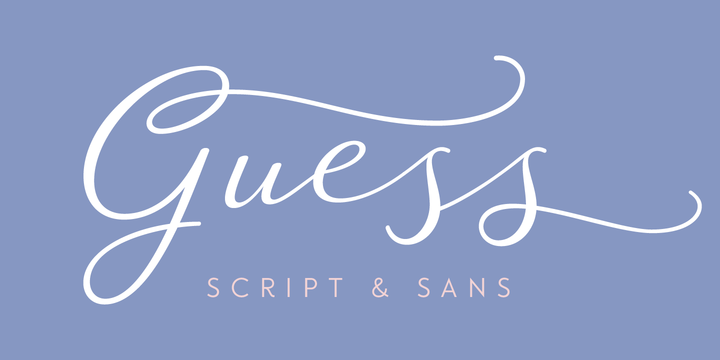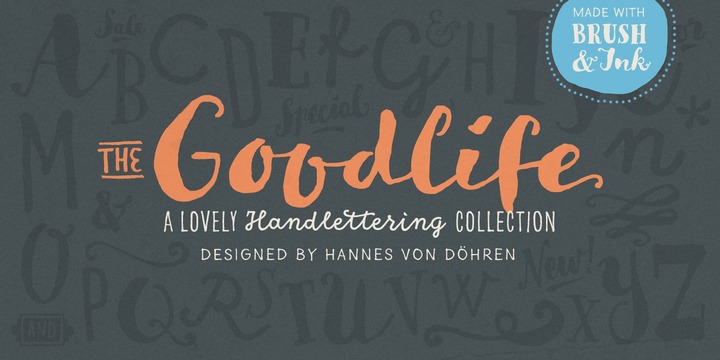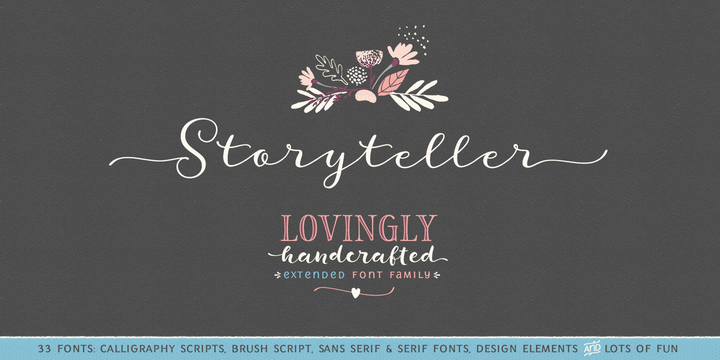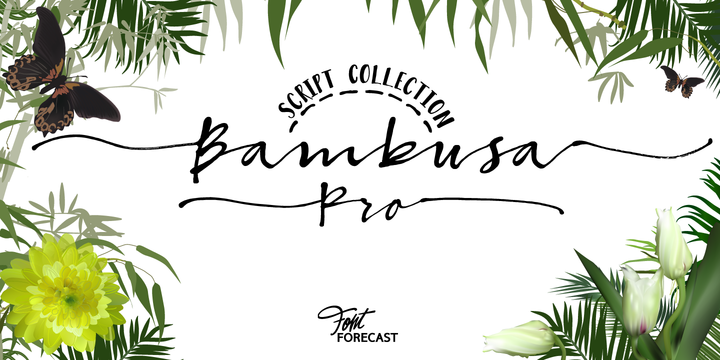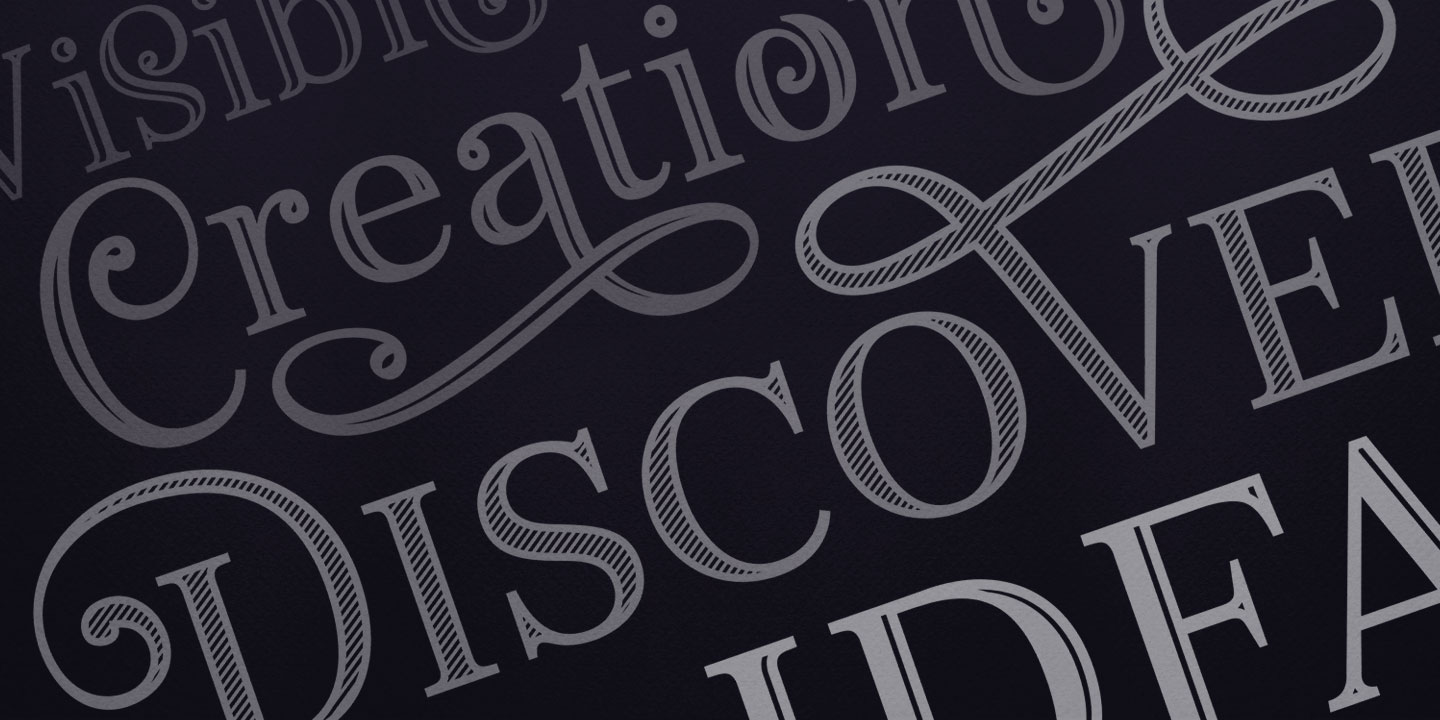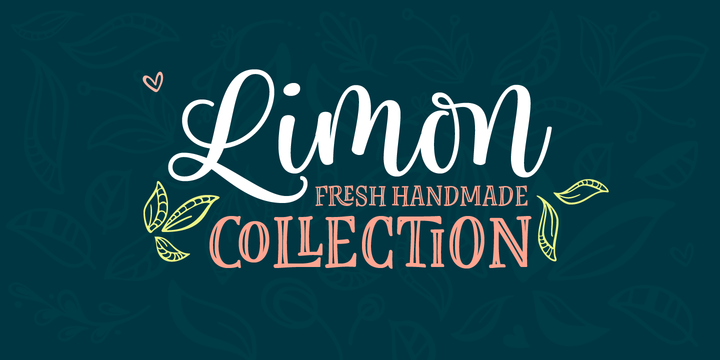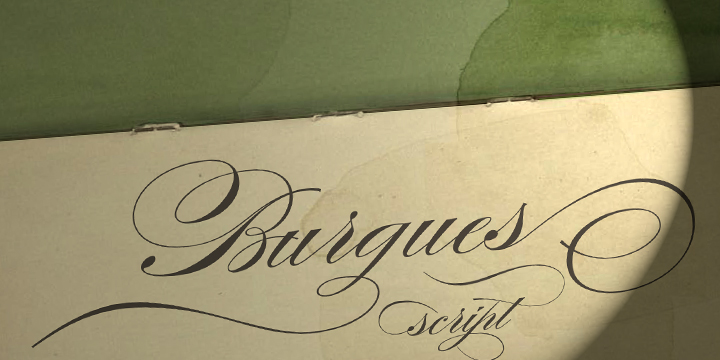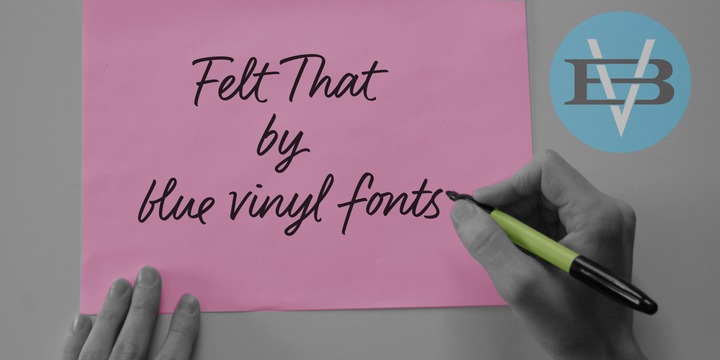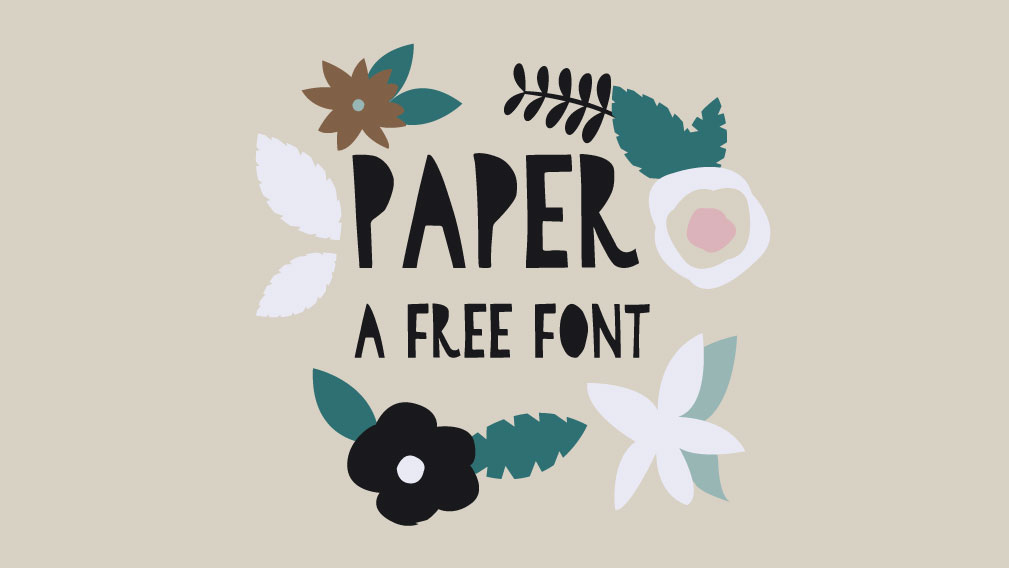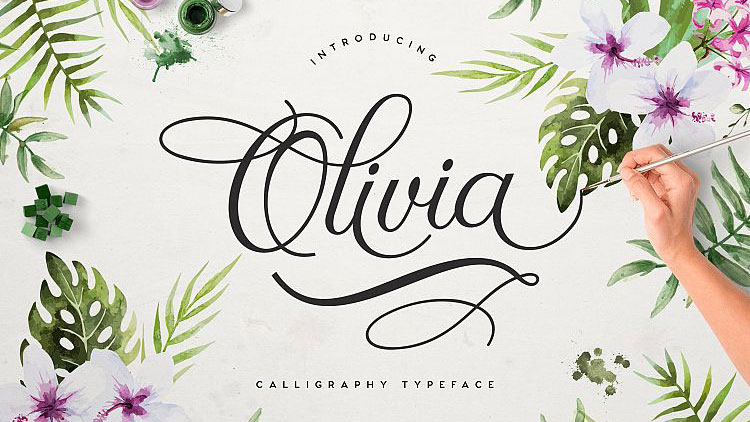
12 wedding fonts to make the big day extra special
The best wedding fonts around, from the whimsical to the grand.
When it comes to tying the knot, there's a lot of stress to make sure that every single detail of the wedding day is absolutely perfect. With so much to decide and keep track of, choosing the best font for your invites and place settings can often get pushed down the list. This shouldn't be the case – after all, you want something tasteful but not too bland, that ties in with the look and feel of your wedding.
To make life easier for those organising the big day, we've put together a list of 10 wedding fonts that are sure to impress friends, family, and even the in-laws. Simply download and type away for gorgeous wedding paraphernalia. Some of these fonts are paid-for while others are free, but if you're after solely free fonts, then take a look at our list of best free fonts for designers.
01. Monstice
Monstice is an elegant, decorative font family made up of five different variants: Base, Engraved, Inline, Hatched and Emboss. Any one would be ideal to add a touch of playful grandeur to your wedding stationery. You can also customise this wedding font with a range of OpenType features including swashes, ligatures and alternates. Pick up the full set for $60/£40.99.
02. Olivia Script
If it's a whimsical, romantic look you're after, look no further than Olivia Script. The designers describe it as a 'a modern calligraphy typeface', and it comes complete with 351 glyphs. This graceful wedding font is free for both personal and commercial use, and you can download it from The Font Bundles Store.
03. Paper
This charming font was made by Behance user Amy Cox. Every single letter has been cut out with real scissors to produce a quirky wedding font complete with filled-in counters. With its resemblance to confetti shapes, this playful font will add a dash of personality to any wedding ceremony. Download it free for personal use from Cox's Behance page (affordable commercial licenses are available too, wedding businesses will be pleased to hear).
04. Limon
Thanks to its fluid shoulder shapes and squiggly lobes, Limon is a zesty font that would be perfectly suited to a spring or summer wedding. Hand-drawn by Sabrina Mariela Lopez, this detailed wedding font took 18 months to design. The hard work has paid off, though, as Limon looks stunning. You can pick up a single font for $49/£32.99, or grab all 16 variants for $179/£128.99.
05. Blend
In the world of coffee, a blend is a mix of beans that work together to produce a balanced taste. The creators of this font have applied the same logic to typography, and the result is a bouncing informal script that would look right at home on invites and table settings. The full set comprises 21 fonts – pick just the ones you want, or download the full set for $159/£107.99.
06. Guess
Fun fonts are all well and good, but what if you need to impress the grownups? Don't panic, Guess could be just what you're looking for. This versatile and elegant wedding font is packed with class and style that's sure to draw admiration from even the most picky of guests. Designed by Veneta Rangelova, you can download the 16 fonts in this set for $150/£101.99.
07. Goodlife
Speaking of versatile fonts, the Goodlife family includes seven different styles that are "optimised to feel not just like a font but like true hand lettering". Designed by Hannes von Döhren (not Tom and Barbara from the BBC series), Goodlife is capable of handling the most complex typography challenges you can throw at it. Get your hands on the seven Goodlife fonts for $99/£70.99.
08. Burgues Script
Sometimes you just need to play it straight and go for a font that turns the classy up to 11. Burgues Script does just that, and designer Alejandro Paul delivers a flowing font inspired by the 19th century calligrapher Louis Madarasz.
09. Storyteller
Script fonts really are the order of the day at weddings, but Storyteller delivers a playful variation on the theme. This family contains 33 fonts in total, and each one has been lovingly handwritten, hand-traced and developed by designer Elena Genova. Compatible with any software, this family is topped off with ligatures and contextual alternates. Download the full set for $149/£103.